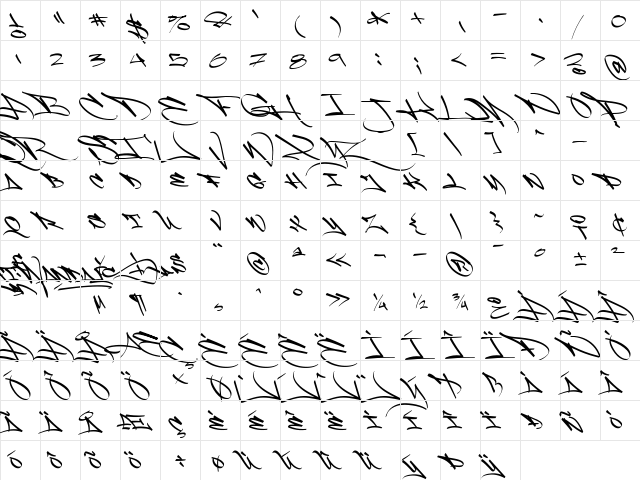
Light Wandals PERSONAL USE Regular
| Foundry | Mans Greback |
| Designer | Mans Greback |
Design Context for Light Wandals PERSONAL USE Typeface
Light Wandals PERSONAL USE is a composed and adaptable typeface that performs quietly and consistently across a wide range of design contexts. The delicate stroke weight brings airiness and refinement to layouts.